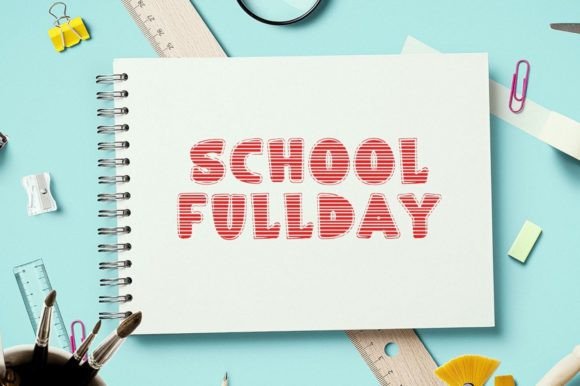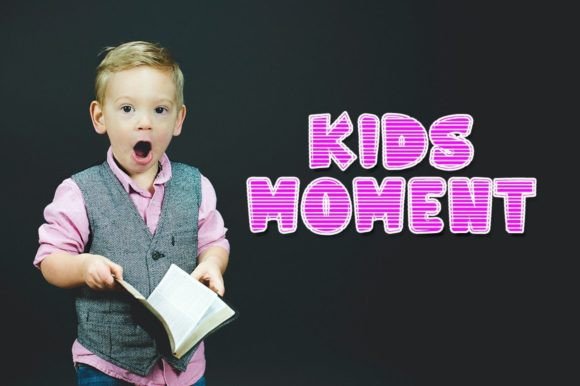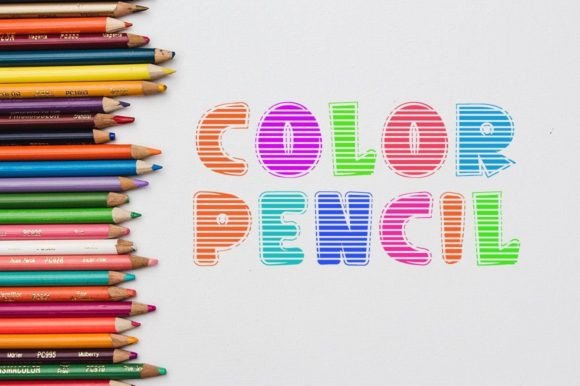
Introduction to Retro Crayon Font
Remember the joy of coloring with crayons as a child? The vibrant colors, the soft texture, and the satisfaction of bringing a picture to life? As designers, we’re always on the lookout for ways to capture that same sense of creativity and playfulness in our work. That’s where the Retro Crayon Font comes in – a beautiful, sweet, and elegant font that’s perfect for adding a touch of whimsy to your designs.
Key Features of Retro Crayon Font
- Unique, hand-drawn design with a nostalgic feel, perfect for creative projects.
- Perfect design resource for designers, artists, and creatives looking to add a touch of nostalgia and whimsy to their projects.
- Can be used for a variety of purposes, including branding, advertising, and editorial content, making it a versatile design element.
Honest Review: Retro Crayon Font
As a designer, I was excited to try out the Retro Crayon Font for my next creative project. I downloaded it for free, and I was immediately impressed by its high quality and unique aesthetic.
One of the things that works well for this font is its transparent background, which makes it easy to use in design resources like graphics and illustrations. The Retro Crayon Font is perfect for adding a playful touch to your designs.
- ✨ Unique and quirky design
- ✨ High quality and detailed graphics
However, there are a few limitations to consider. The Retro Crayon Font may not be suitable for all types of projects, and it’s not as versatile as some other fonts. Additionally, the font may not be as readable at small sizes, which could be a limitation for some designs.
Overall, I think the Retro Crayon Font is a great design resource for creative projects that require a playful and unique touch. With its high quality graphics and transparent background, it’s a great choice for designers looking for a free and easy-to-use font.
Retro Crayon Font
Getting the Most Out of Retro Crayon Font
The Retro Crayon Font is perfect for creating whimsical and playful designs, such as children’s book illustrations, party invitations, and social media graphics. Its unique, hand-drawn style makes it an ideal choice for designers looking to add a touch of nostalgia and charm to their creative projects.